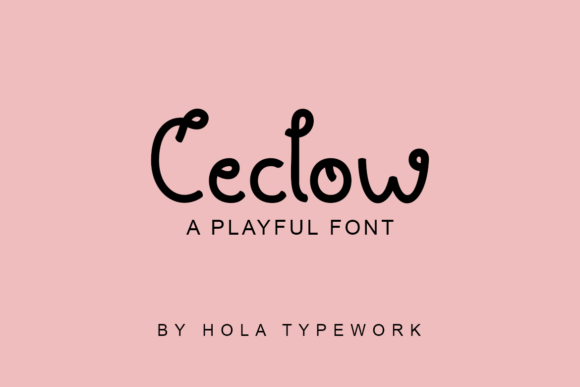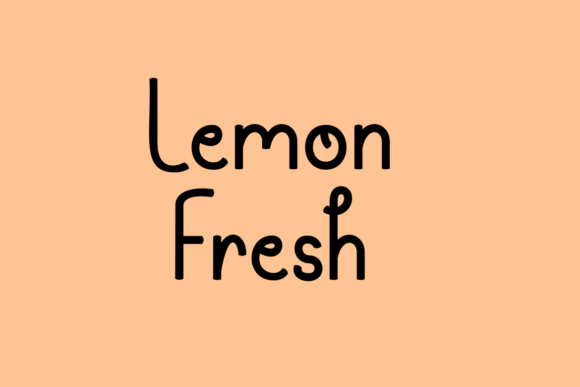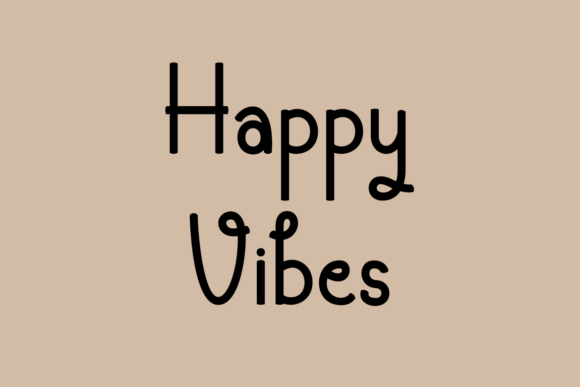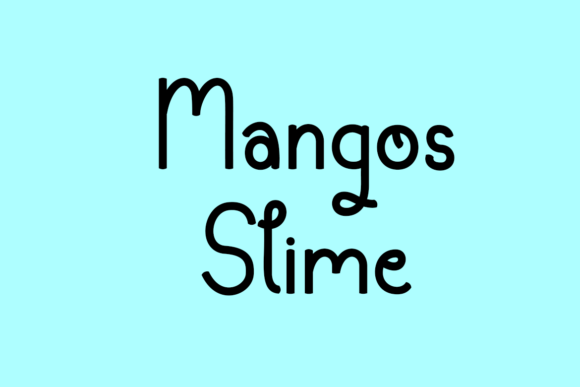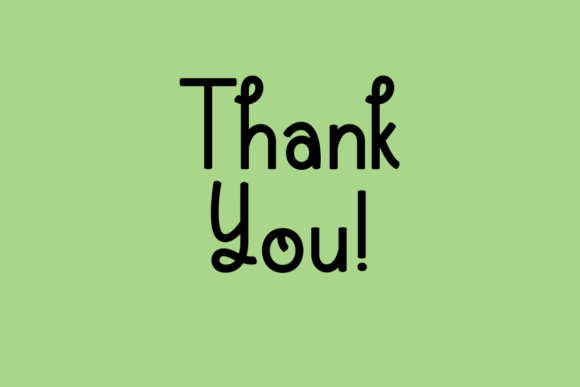
Ceclow Font
About Ceclow Font
Ceclow is a playful and fun handwritten font completed with unique characters. It is great for t-shirt designs, quotes, mugs, tote bags, cards, banners, social media, and any crafty project. Add it to each of your party invitations or pretty much any design that requires a touch of youth and joy.